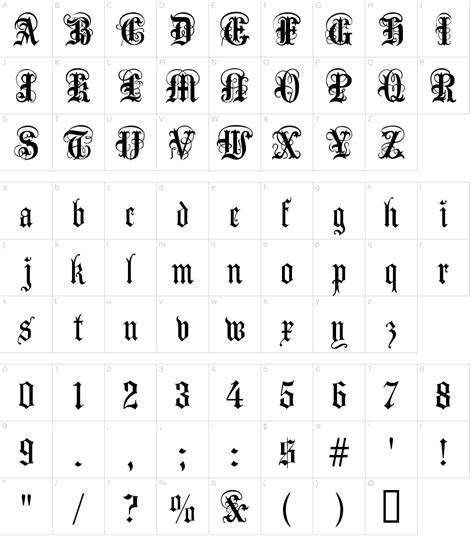
Anglican Text Font: Free Download Guide
Hey guys! Today we’re diving into the wonderful world of Anglican text fonts , and more importantly, where you can snag some awesome free downloads to spruce up your projects. Whether you’re a designer, a history buff, or just someone who appreciates a good-looking typeface, you’ve come to the right place. We’re going to explore what makes these fonts so special and guide you through the process of finding and downloading them. Let’s get this party started!
What Exactly Are Anglican Text Fonts?
So, what’s the big deal with Anglican text fonts ? These aren’t just any old fonts, you know. They are deeply rooted in the history of the Anglican Church and often emulate the style of scripts used in significant religious texts and documents throughout its history. Think elegant serifs, classic letterforms, and a certain gravitas that speaks to tradition and reverence. Often, these fonts draw inspiration from historical manuscripts, early printed books, and the architectural styles prevalent during different periods of Anglicanism. The goal is to capture a sense of heritage, formality, and a touch of scholarly depth. When you see a font described as an ‘Anglican text font,’ it usually implies a certain aesthetic: it’s often clean, legible, and possesses a timeless quality. These fonts are not typically flashy or modern; instead, they aim for a sophisticated and understated elegance. They might feature subtle variations in stroke width, carefully crafted serifs that guide the eye, and a balanced overall appearance that is easy on the eyes for extended reading. The historical context is key here; these fonts often reflect the evolution of printing and calligraphy within the Anglican tradition, from the illuminated manuscripts of the medieval era to the groundbreaking typography of the Renaissance and beyond. Designers who create fonts in this style often do extensive research into historical exemplars to ensure authenticity and aesthetic coherence. They might study the marginalia, the layout of pages, and the specific letter shapes that were favored by scribes and early printers associated with the Church of England. The result is a typeface that not only looks good but also carries a narrative of history and tradition. This makes them particularly suitable for projects that require a sense of authority, historical accuracy, or a connection to religious or academic themes.
The rich history behind these fonts makes them incredibly versatile. They can be used for a variety of purposes, from personal journaling and scrapbooking to professional design work for churches, academic institutions, or historical publications. The aesthetic is often associated with a certain gravitas and refinement, making them perfect for invitations, certificates, formal documents, or even as body text in books that aim for a classic feel. You might find that many fonts in this category are inspired by the Blackletter scripts, also known as Gothic script, which were widely used in Europe for manuscripts and early printed books, including religious texts. However, ‘Anglican text fonts’ can also encompass serif fonts that emerged later, reflecting the Enlightenment and Victorian eras, which also saw significant developments in printing and typography within the Anglican world. The key is the connection to the tradition , the historical influence , and the overall aesthetic appeal that evokes a sense of heritage and learning. When you choose an Anglican text font, you’re not just selecting a typeface; you’re choosing a piece of history that can add a unique character and depth to your creative endeavors. Think about the iconic Book of Common Prayer, or the King James Bible – the typography associated with these seminal works often informs the design of modern Anglican-inspired fonts. These fonts convey a sense of solemnity, importance, and enduring quality. They are the typographic equivalent of a well-worn leather-bound book or a beautifully carved wooden pew. The meticulous attention to detail in their design ensures legibility while maintaining a distinct historical charm. So, whether you’re designing a website for a parish, creating a brochure for a historical society, or simply want to add a touch of classic elegance to your digital or print materials, understanding the nuances of Anglican text fonts is a great starting point.
Why Use Anglican Text Fonts?
Alright, so why should you even bother with Anglican text fonts ? Well, guys, they bring a unique blend of classic elegance and historical depth to any project. If you’re aiming for a timeless, sophisticated look, these fonts are your secret weapon. They evoke a sense of tradition, authority, and a certain academic or religious gravitas that’s hard to replicate with modern, minimalist fonts. For projects related to religious institutions, historical documents, or anything requiring a touch of old-world charm, they are simply unparalleled. Imagine designing a wedding invitation with a font that whispers of centuries-old ceremonies, or a historical society’s newsletter that instantly transports readers back in time. That’s the power these fonts hold! They convey a sense of seriousness and importance without being stuffy or unapproachable. They have a distinguished air about them, perfect for any design that needs to command respect and convey a lasting impression. Furthermore, their readability is often a key feature. While they possess historical character, many Anglican text fonts are designed with modern legibility in mind, ensuring that your message is communicated clearly and effectively, even in smaller sizes or for longer passages of text. This blend of historical authenticity and functional design makes them incredibly practical. You get the aesthetic appeal without sacrificing usability. Think about the difference between a hastily designed flyer and a meticulously crafted book cover; the typography plays a massive role in that perception of quality and care. Anglican text fonts contribute significantly to that elevated feel. They can add a touch of solemnity to a serious document, a sense of warmth to a personal letter, or an air of scholarly authority to an academic paper. Their versatility lies in their ability to adapt to different contexts while maintaining their core identity of classic refinement. Many designers choose these fonts when they want to steer clear of overly trendy or generic typefaces, opting instead for something with a distinct personality and a rich backstory. The psychological impact of typography is profound, and an Anglican text font can subtly communicate values like trustworthiness, heritage, and intellectual depth. It’s about creating an experience for the reader, drawing them into the content with a visual style that is both pleasing and meaningful.
Plus, let’s be honest, they just look plain cool. There’s an inherent beauty in well-crafted letterforms that harken back to a different era. They can add a touch of character and personality to your work that makes it stand out from the crowd. Whether you’re designing a logo, a website, or a piece of marketing collateral, using a font with a story can make your design more memorable and engaging. It’s a way to connect with a particular aesthetic and to imbue your project with a sense of history and craftsmanship.
Be sure to pay attention to the font’s description and license. This is super important! Many ‘free’ fonts are only free for personal use. If you plan to use the font for a business, website, or any commercial project, you need a font that explicitly allows for commercial use. Websites like Font Squirrel often have a handy filter for this, which is a lifesaver. Google Fonts is generally very permissive for both personal and commercial use. For DaFont and similar sites, always click on the ‘info’ or ‘license’ link associated with the font. It might seem like a hassle, but it can save you a lot of trouble down the line. Reading the fine print ensures you’re using the fonts legally and ethically.
Specific Font Recommendations (Examples)
While ‘Anglican text font’ isn’t a strict category, here are some types of fonts you can look for that often fit the bill and can be found for free:
• Classic Serif Fonts: Think fonts that resemble those used in old books. Look for fonts with distinct serifs (the little feet at the ends of strokes) and a balanced, readable structure. Examples might include variants of Garamond, Times New Roman (though often system-based, similar free versions exist), or other old-style serifs. Search for terms like ‘old-style serif,’ ‘traditional serif,’ or ‘book font.’
• Blackletter/Gothic Fonts: These are the dramatic, ornate scripts you often associate with medieval manuscripts and early printed texts. While historically linked to various European traditions, they were also used in religious contexts. Be mindful that these can sometimes be harder to read for extended text, so they’re best for titles or short decorative elements. You can find many free blackletter fonts on DaFont and other similar sites by searching ‘blackletter,’ ‘gothic,’ or ‘old english.’
• Consider the Project’s Tone: Does your project require solemnity, history, elegance, or academic rigor? Choose your Anglican text font accordingly. A formal invitation might use an elegant script, while a historical article might benefit from a sturdy, old-style serif.
Remember, the goal is to enhance your message, not distract from it. Use these beautiful, historically rich fonts thoughtfully, and they will undoubtedly elevate your design projects. Happy designing, everyone!